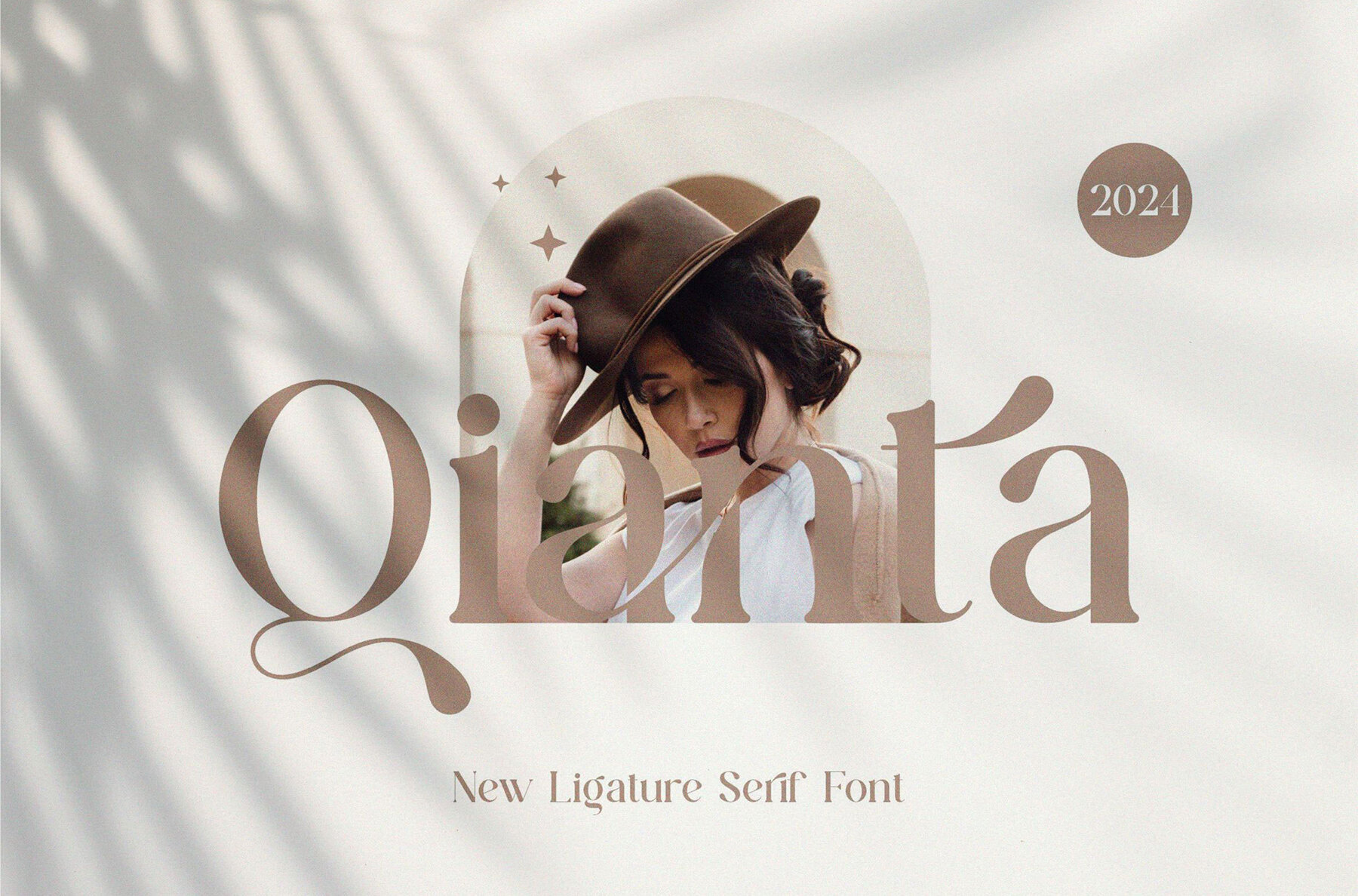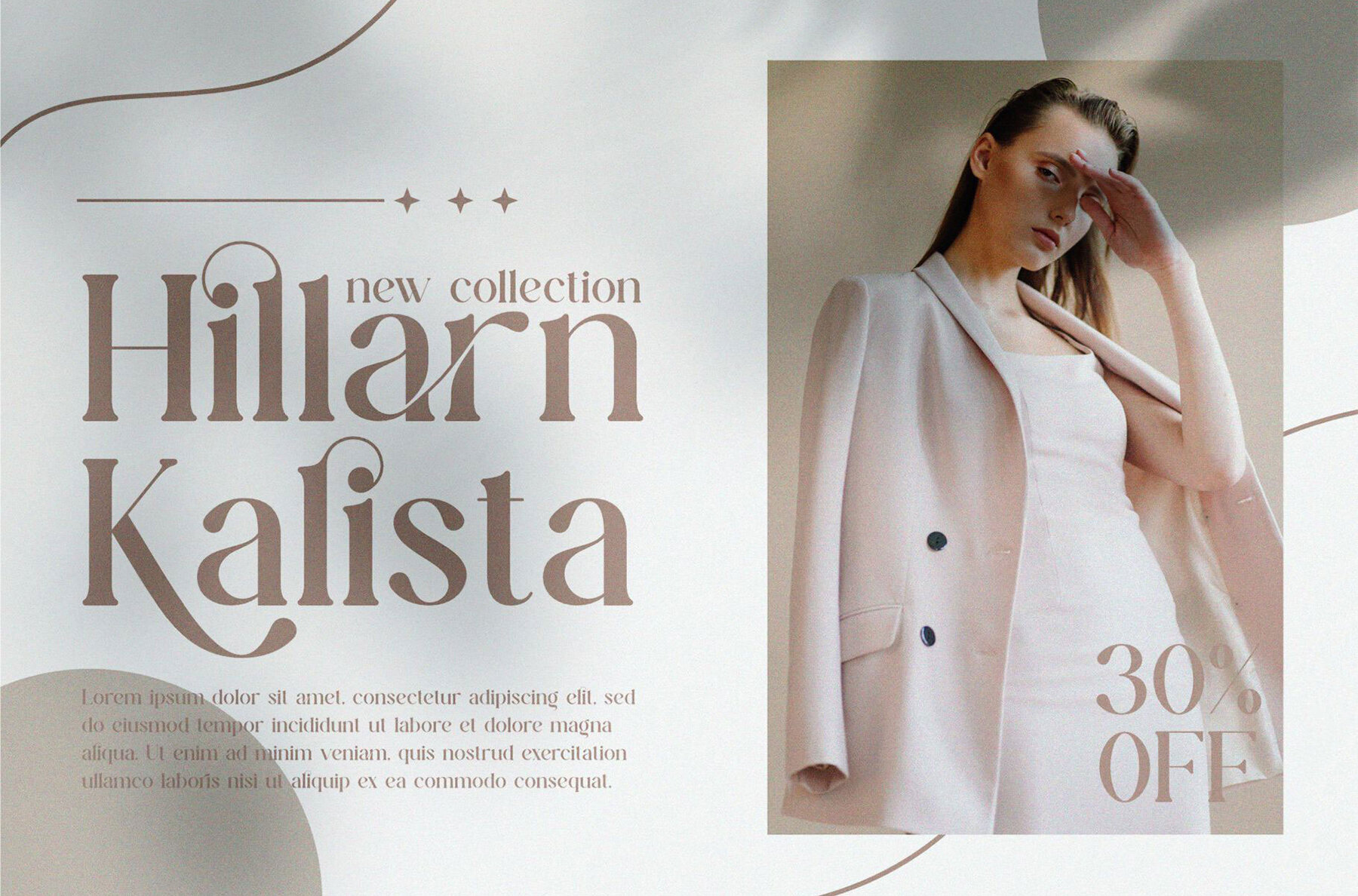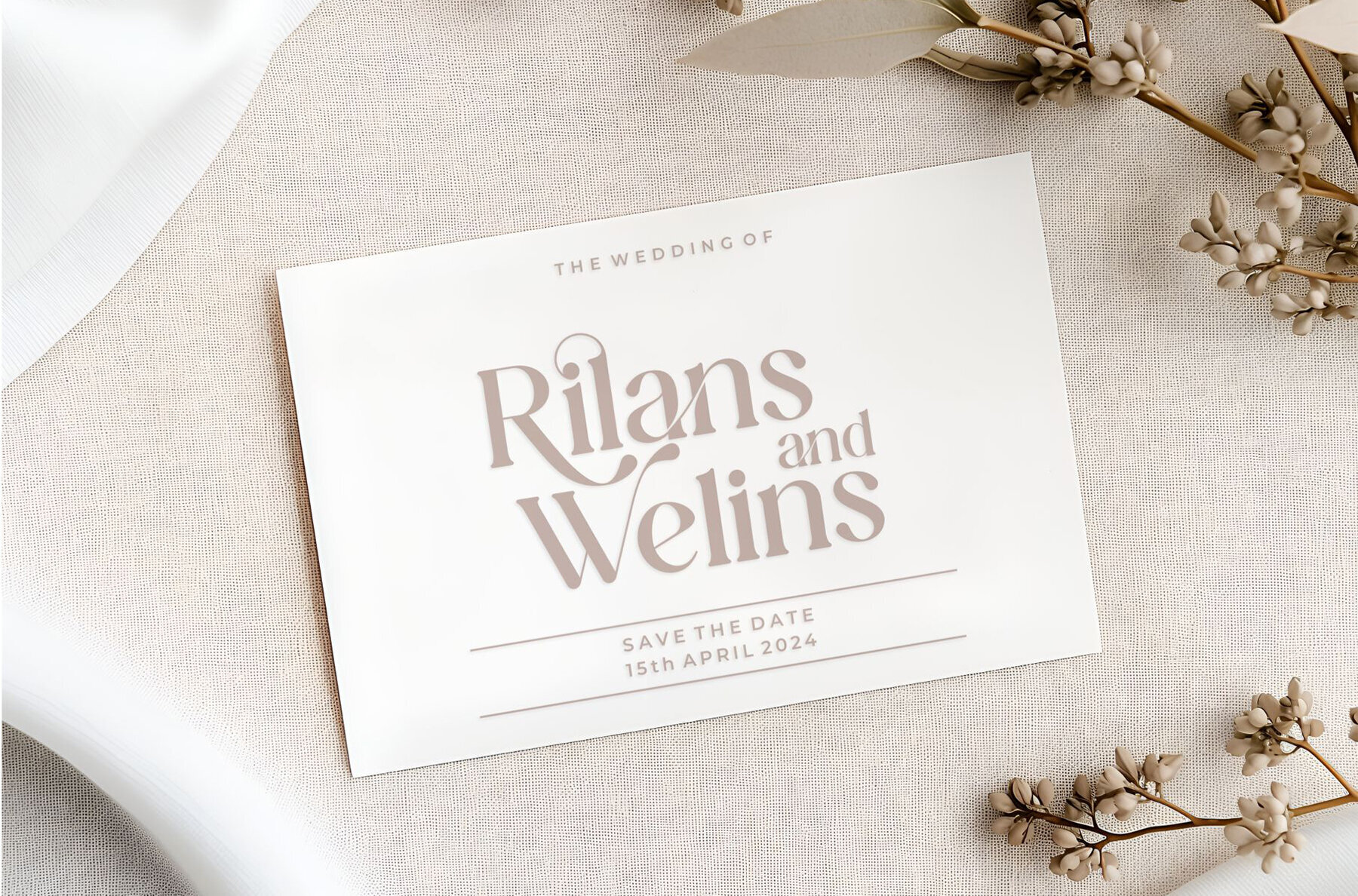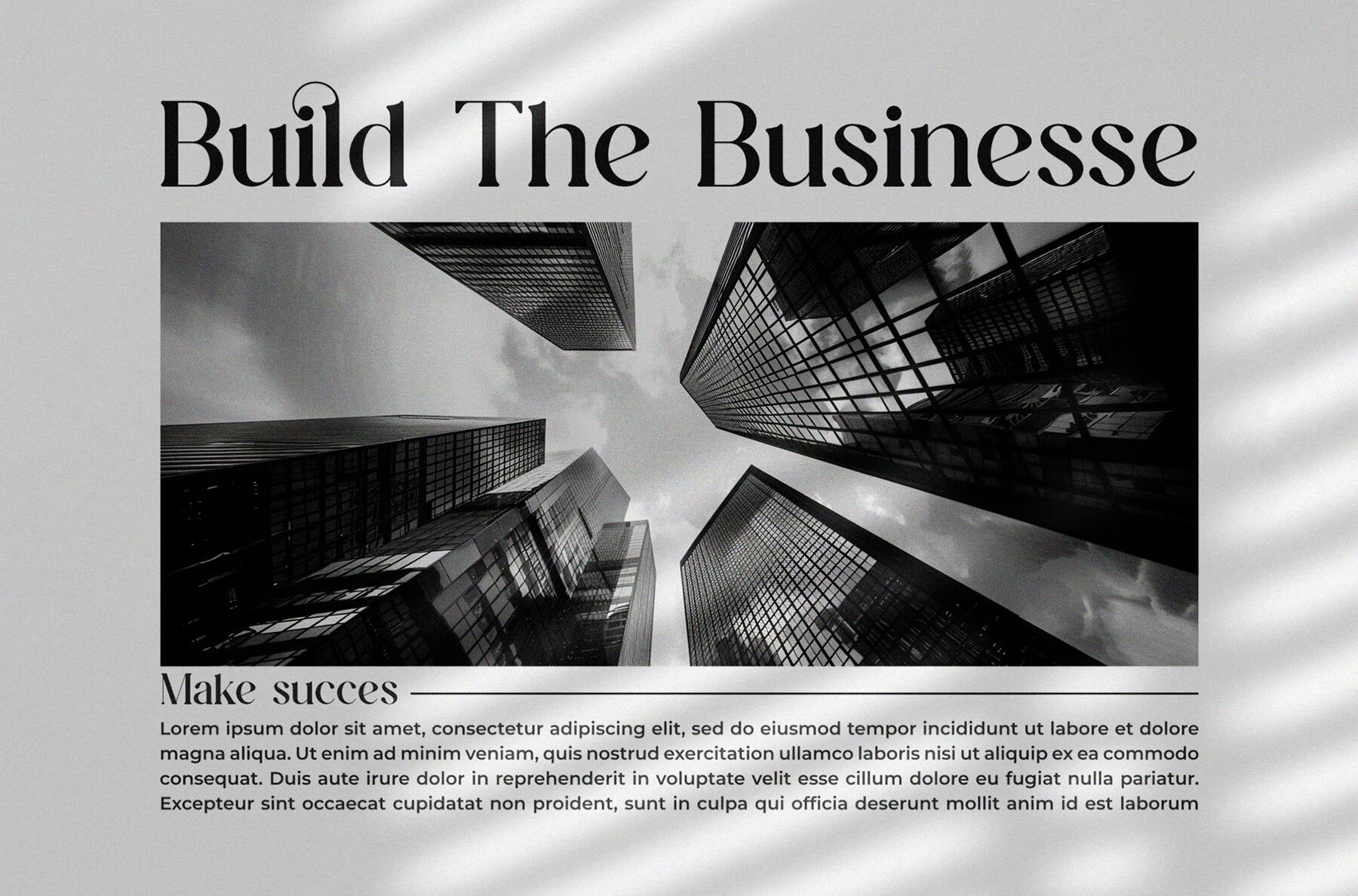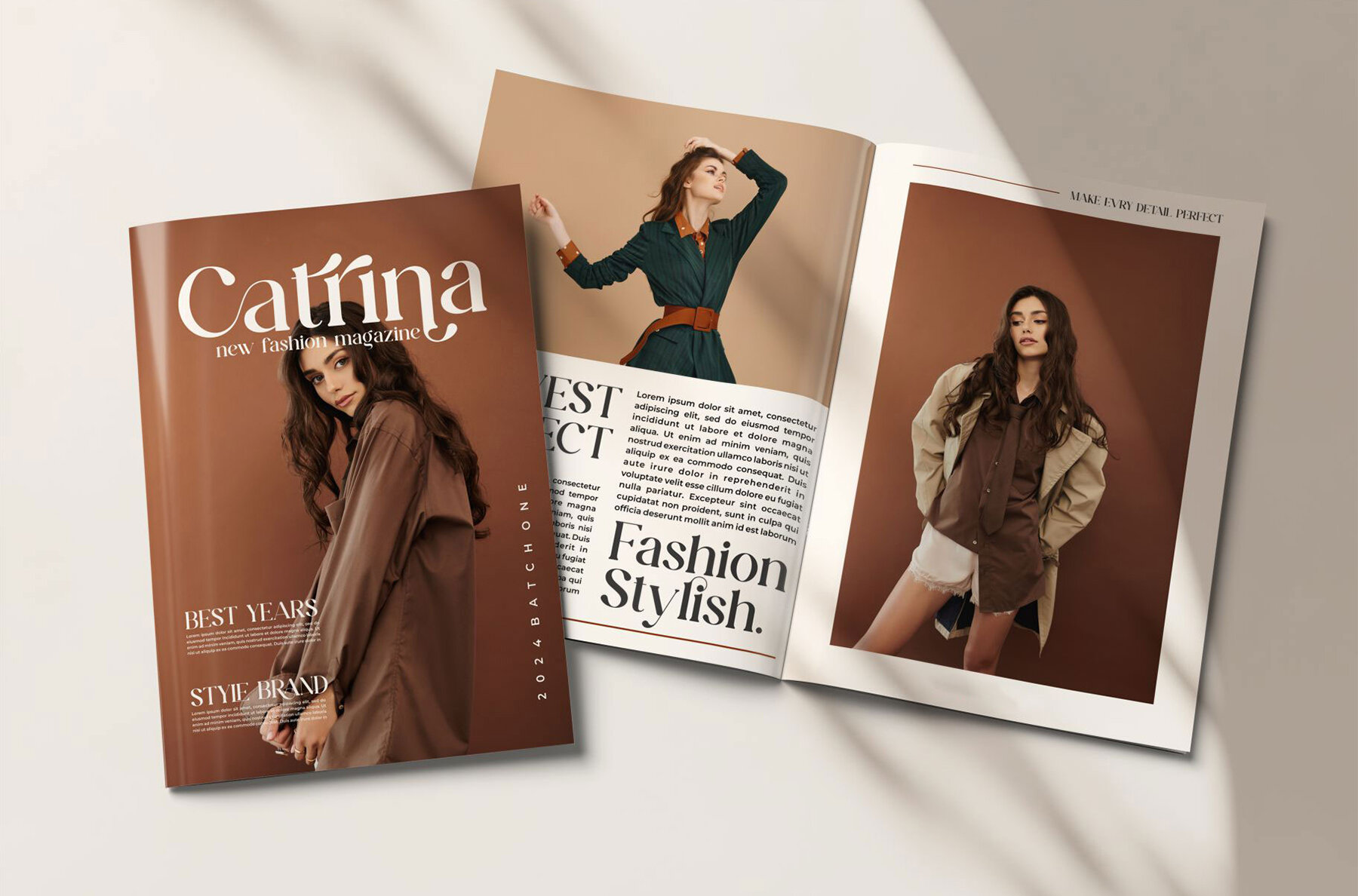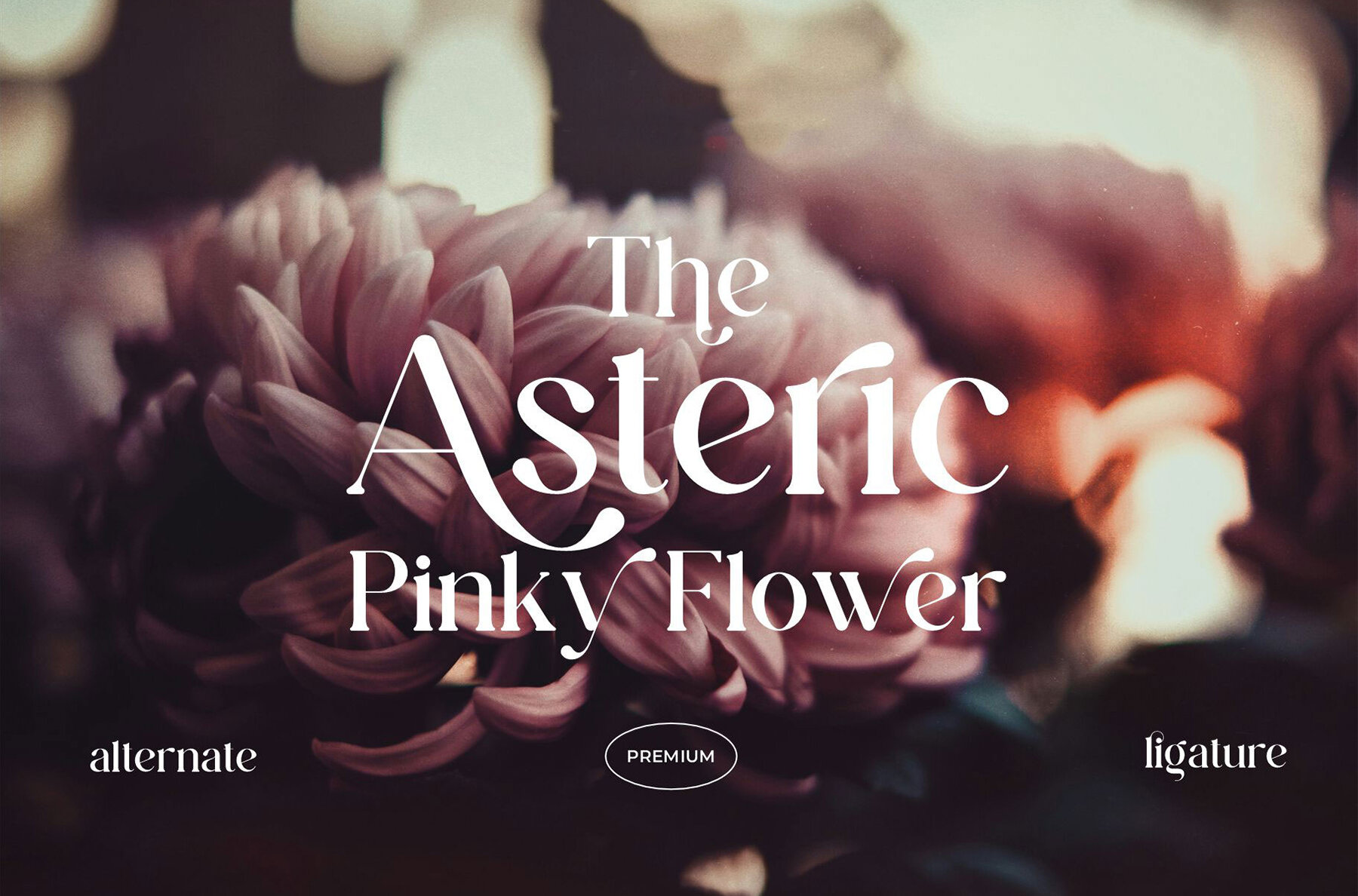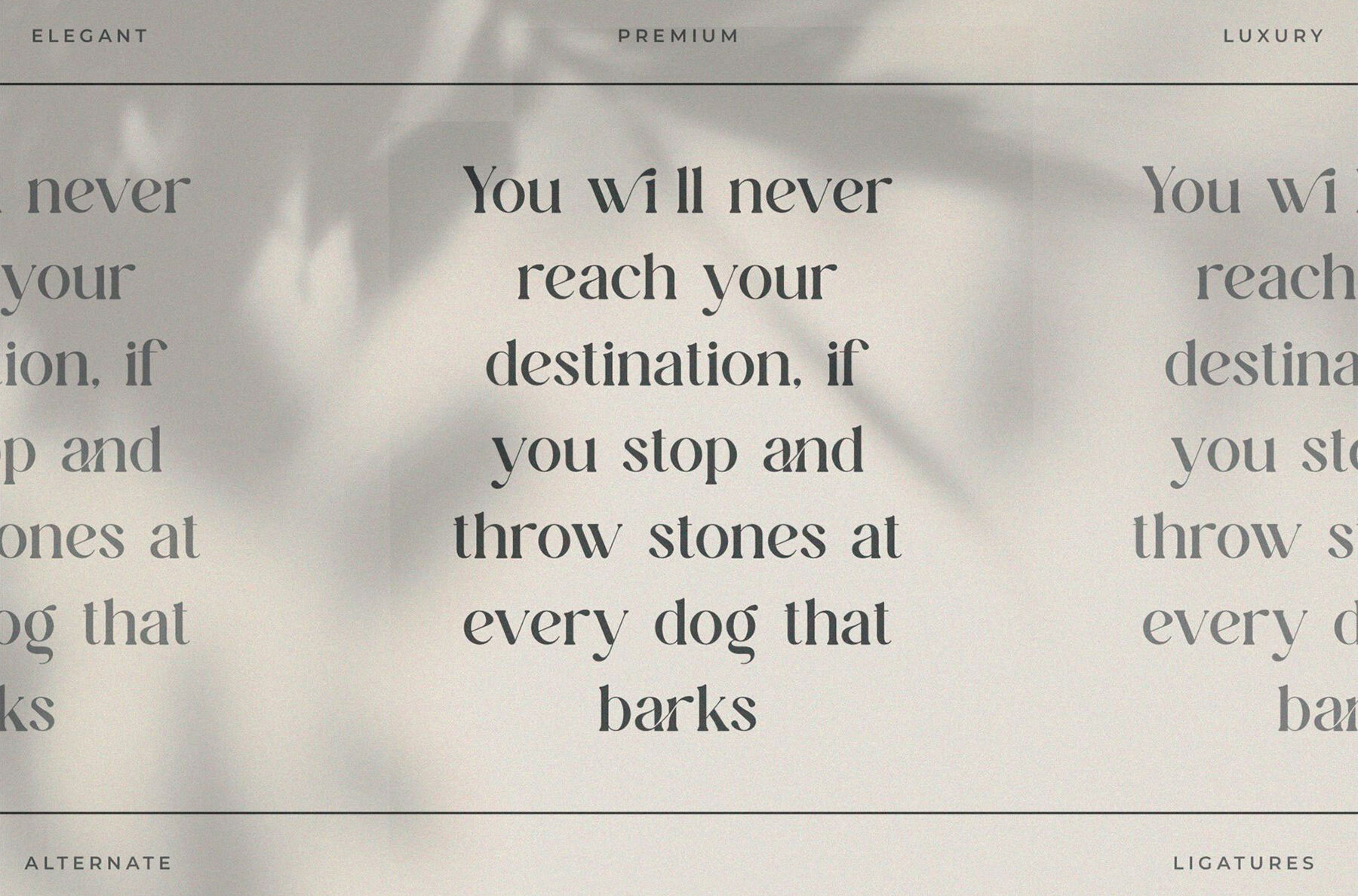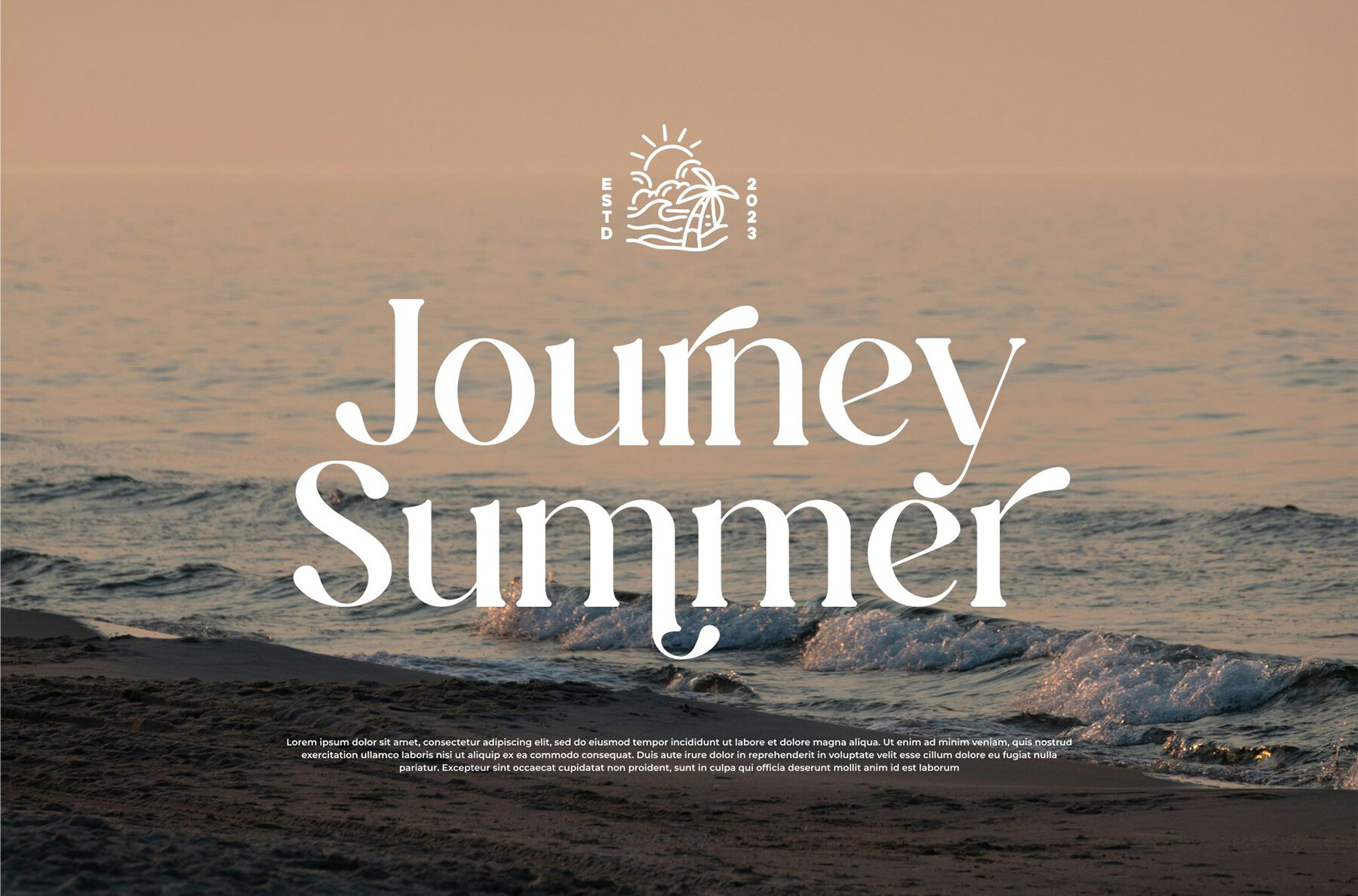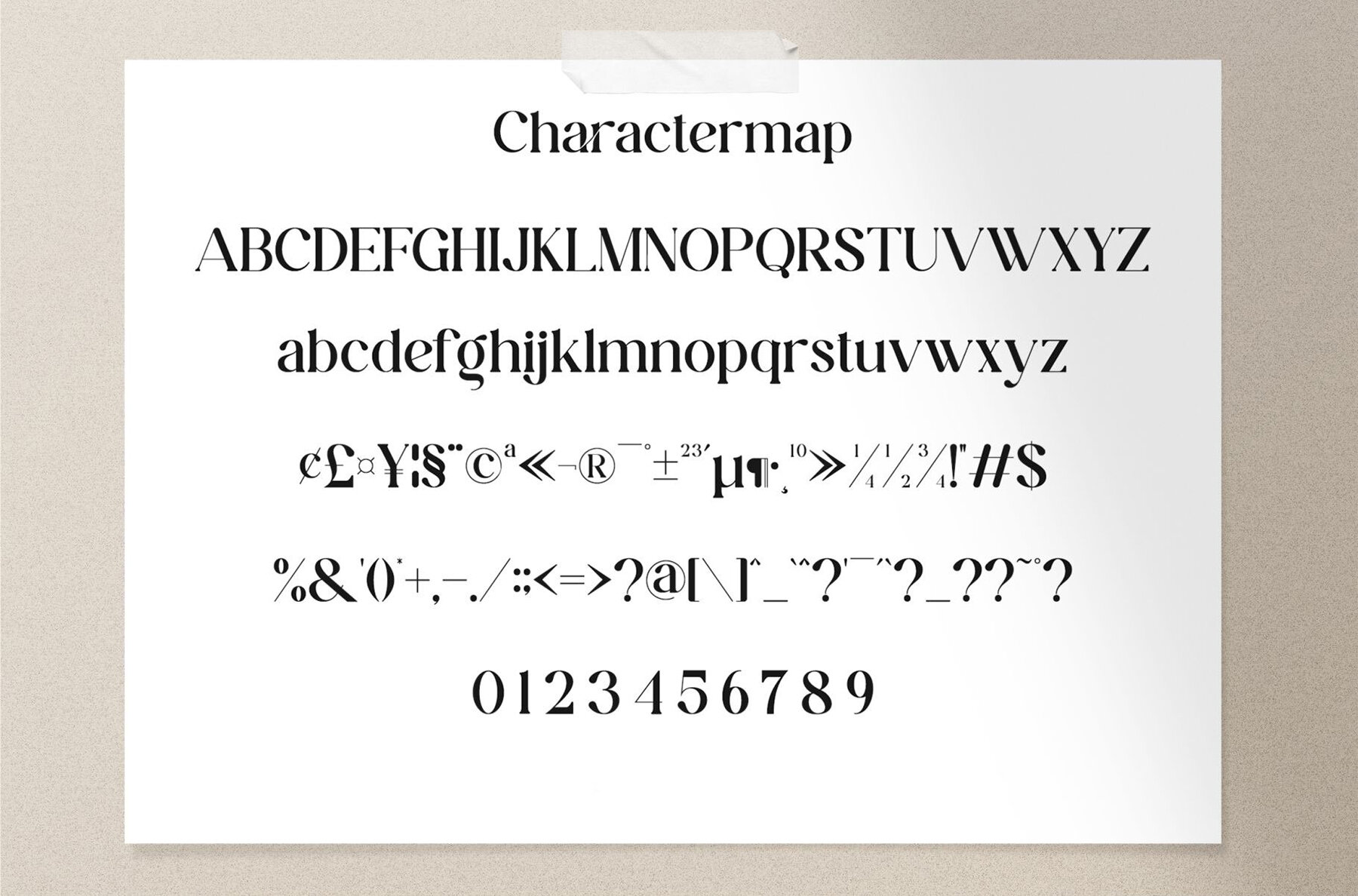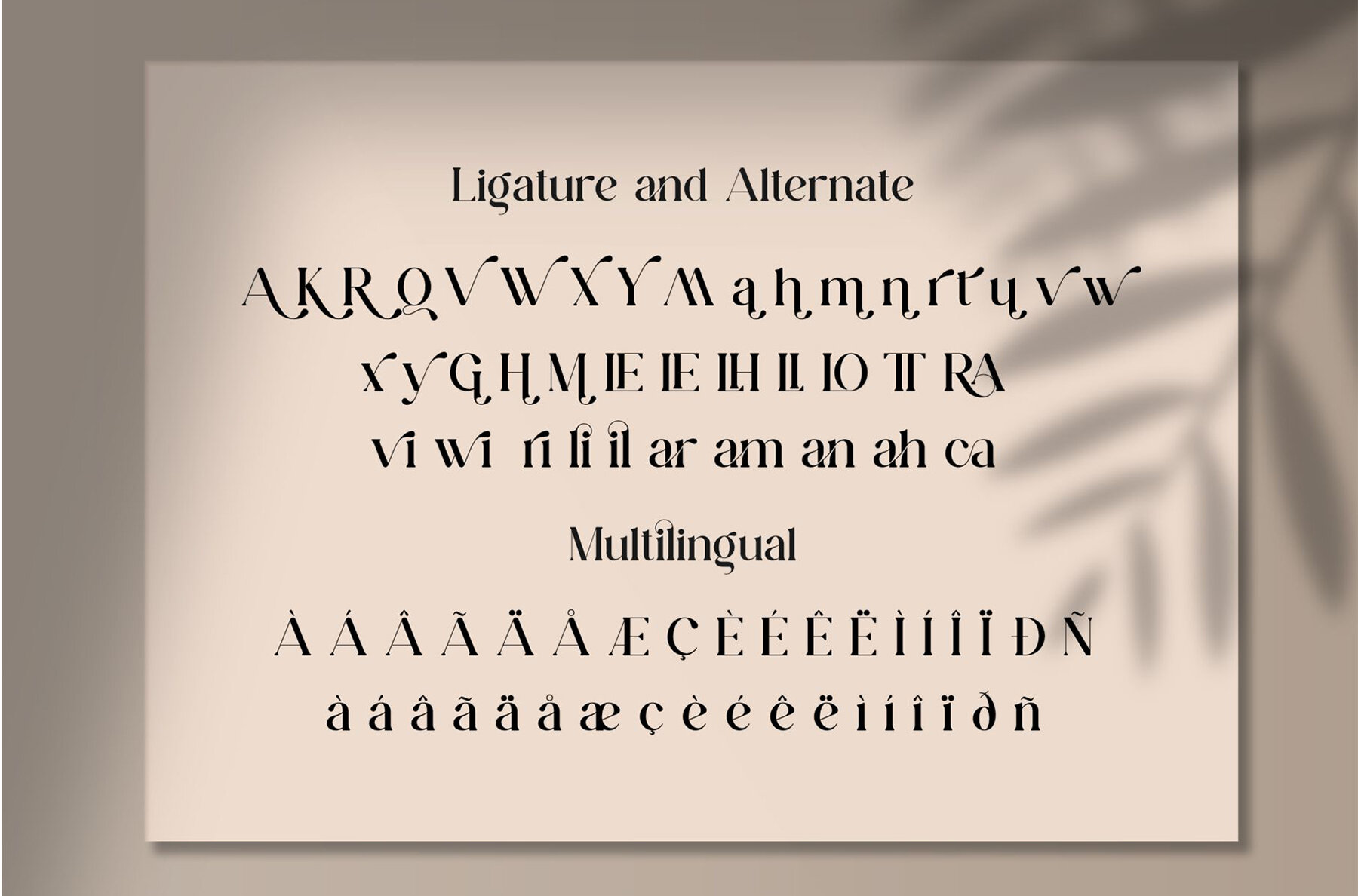
Qianta Font
Qianta Regular
Qianta is a refined and elegant serif font that strikes a balance between smoothness and stylish sophistication. Its unique character makes it an ideal choice for enhancing invitation card designs, company logos, and more. Whether you're designing movie titles, business cards, book titles, or brand names, the versatility of Qianta ensures a seamless blend of elegance and functionality.
This smooth serif font is designed to elevate your projects with its sophisticated style. Qianta’s thoughtfully crafted alterations and ligatures provide a distinctive flair, making it an excellent companion for any creative endeavor. Embrace the timeless appeal of Qianta to bring an element of sophistication to a wide array of design applications.